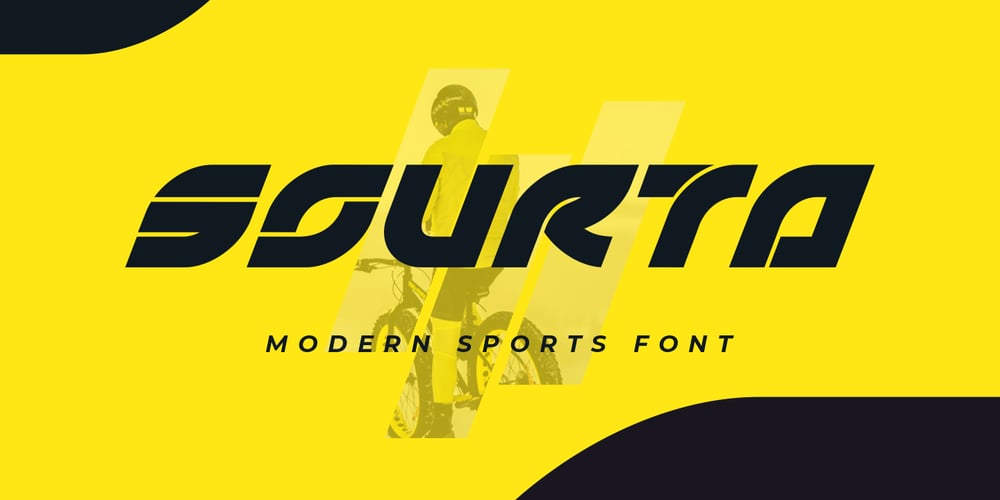
Sourta Font Family was designed by Burhan Afif and published by HansCo. Sourta contains 1 styles and family package options. SOURTA is a sharp italic and bold font with unique style that will make your design looks modern and futuristic. You can use this font for any purpose, especially to make logotype like a technology or sports logo brand. This typeface is comes in uppercase, lowercase, punctuation, symbols, numerals, etc also support multilingual.Highly recommended to use it in OpenType capable software – there are plenty out there nowadays as technology catches up with design. The OpenType features can be accessed by using programs such as Adobe Illustrator, Adobe InDesign, Adobe Photoshop Corel Draw X version, Afinity and more. Enjoy!